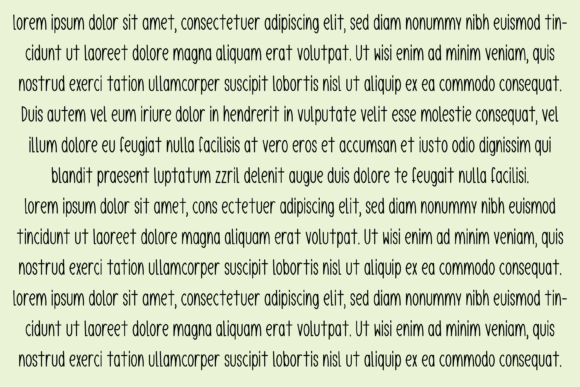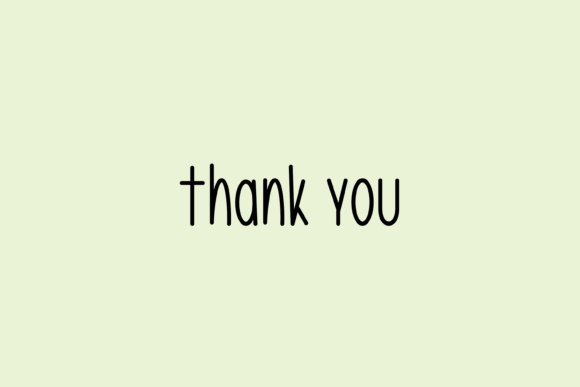
Introducing Allright Font: The Simple, Friendly, and Whimsical Handwritten Font
Are you tired of using the same old fonts in your designs? Look no further! Allright Font is here to brighten up your projects with its simple, friendly, and whimsical handwritten style. This quirky font is perfect for designers and crafters who want to add a personal touch to their work. In this article, we’ll dive into the features and benefits of Allright Font, and explore how it can elevate your designs.
A Simple yet Whimsical Design
Allright Font is a beautifully crafted handwritten font that exudes a sense of friendliness and approachability. Its simple design makes it easy to read and understand, while its whimsical touches add a dash of personality to your text. The font’s unique blend of rounded edges and subtle imperfections gives it a human feel, making it perfect for designs that require a personal touch.
Allright Font is a versatile typeface that can be used in a wide range of projects. Whether you’re designing a logo, creating wedding invitations, or crafting advertisements, this font is sure to impress. Its playful and upbeat vibe makes it ideal for:
- Logos: Add a touch of whimsy to your brand’s logo and make it stand out from the crowd.
- Wedding Invitations: Create beautiful and unique wedding invitations that reflect the couple’s personality.
- Quotes: Add a dash of inspiration to your quotes and make them more engaging.
- Advertisements: Grab attention with eye-catching ads that feature the Allright Font.
- Print: Use the font in brochures, flyers, and other print materials to add a personal touch.
- Magazines: Add a touch of whimsy to your magazine layouts and make them more visually appealing.
Why Choose Allright Font?
So, why should you choose Allright Font for your projects? Here are just a few reasons:
- Unique Design: Allright Font has a unique and distinctive design that sets it apart from other fonts.
- Easy to Read: The font is easy to read, even in small sizes, making it perfect for body text and captions.
- Versatile: Allright Font can be used in a wide range of projects, from logos to magazines.
- High-Quality: The font is crafted with high-quality techniques to ensure it looks great in any design.
Tips for Using Allright Font
Here are a few tips for getting the most out of Allright Font:
- Experiment with Sizes: Try using the font in different sizes to create visual interest and hierarchy.
- Pair with Other Fonts: Pair Allright Font with other fonts to create a unique and interesting combination.
- Use it Sparingly: Use the font sparingly to create emphasis and add a touch of personality to your design.
| Font Name | Allright Font |
| Author | Woracado |
In conclusion, Allright Font is a simple, friendly, and whimsical handwritten font that’s perfect for designers and crafters who want to add a personal touch to their work. Its unique design, versatility, and high-quality craftsmanship make it a great choice for a wide range of projects. Whether you’re creating logos, wedding invitations, or advertisements, Allright Font is sure to brighten up your designs and make them more engaging. So why not give it a try and see the difference it can make?